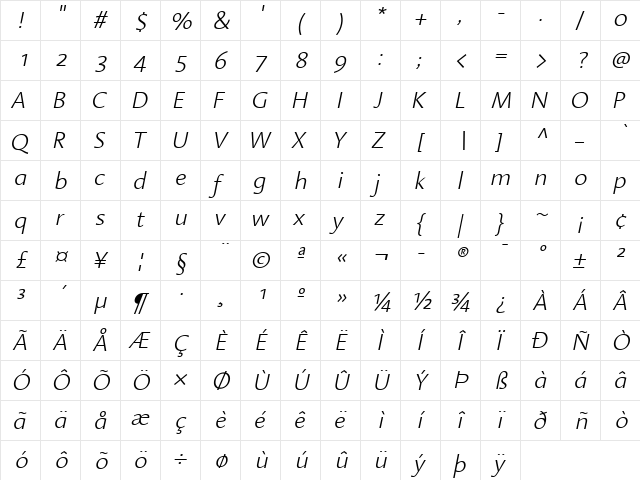
LinotypeAroma Light Light Italic Font Preview
| Style | Light Italic |
Design Context for LinotypeAroma Light Typeface
LinotypeAroma Light offers clean, dependable letterforms without strong stylistic allegiance, making it a practical choice for designers who need flexibility. The slanted form adds forward momentum and visual energy. The delicate stroke weight brings airiness and refinement to layouts.
Pro Tip: Try LinotypeAroma Light for annotation and caption copy alongside an upright companion — the contrast in angle creates a dynamic but ordered typographic system.